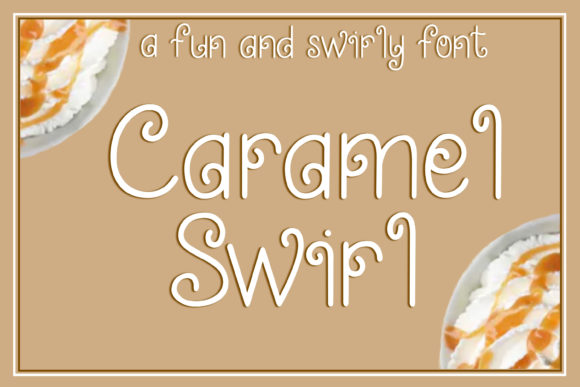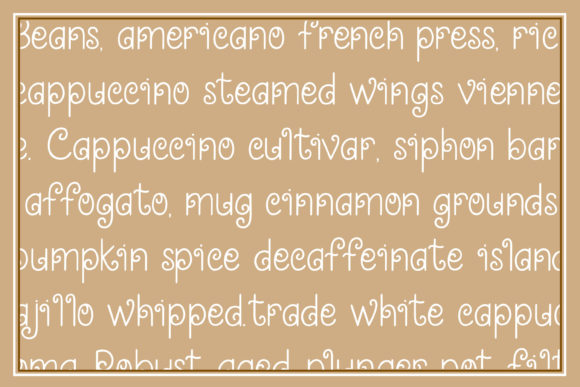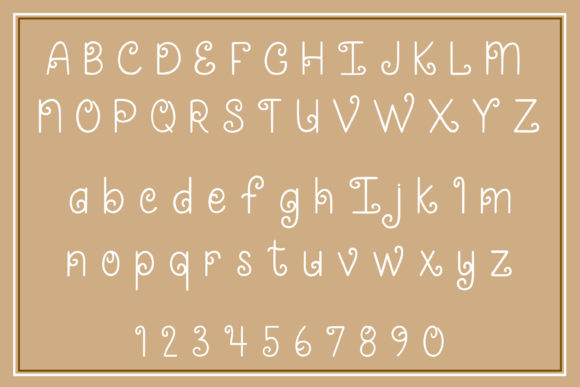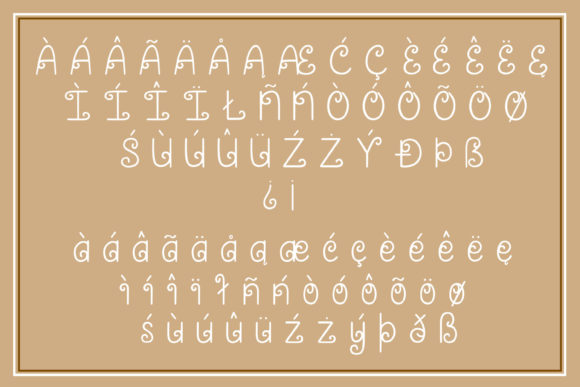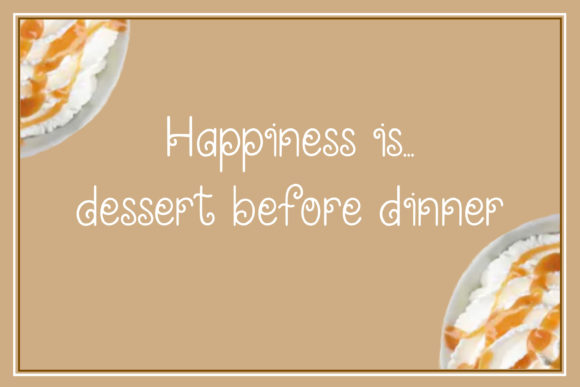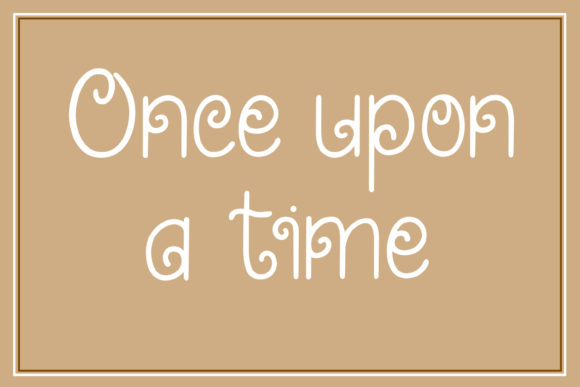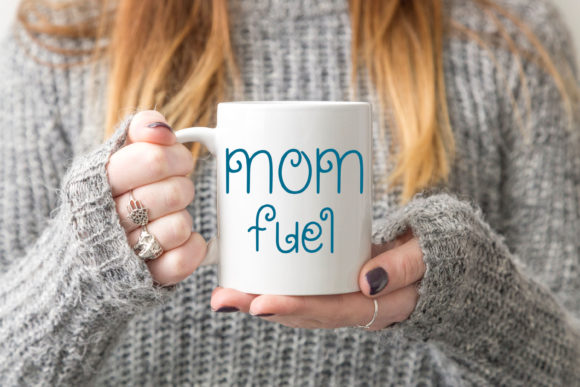
Caramel Swirl Font
About Caramel Swirl Font
Caramel Swirl is a fun and swirly handwritten font with a sweet twist. It will add a magical feel to any design project!